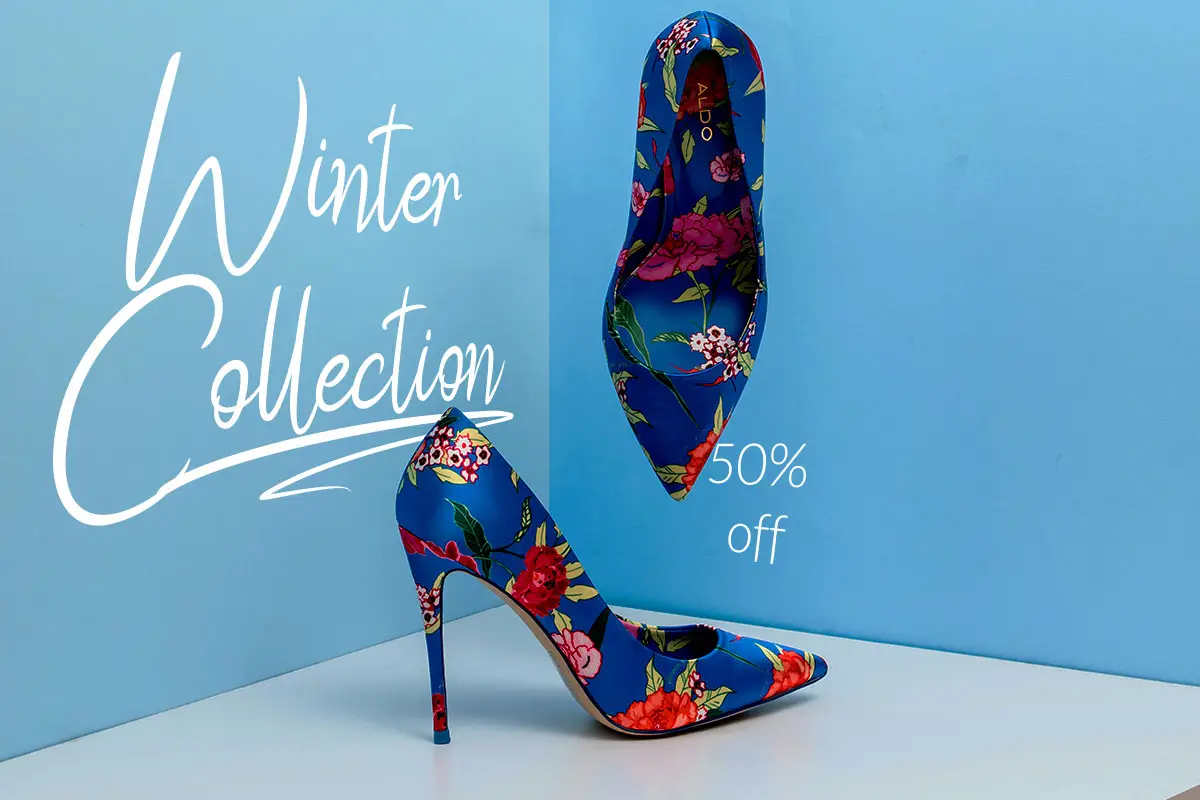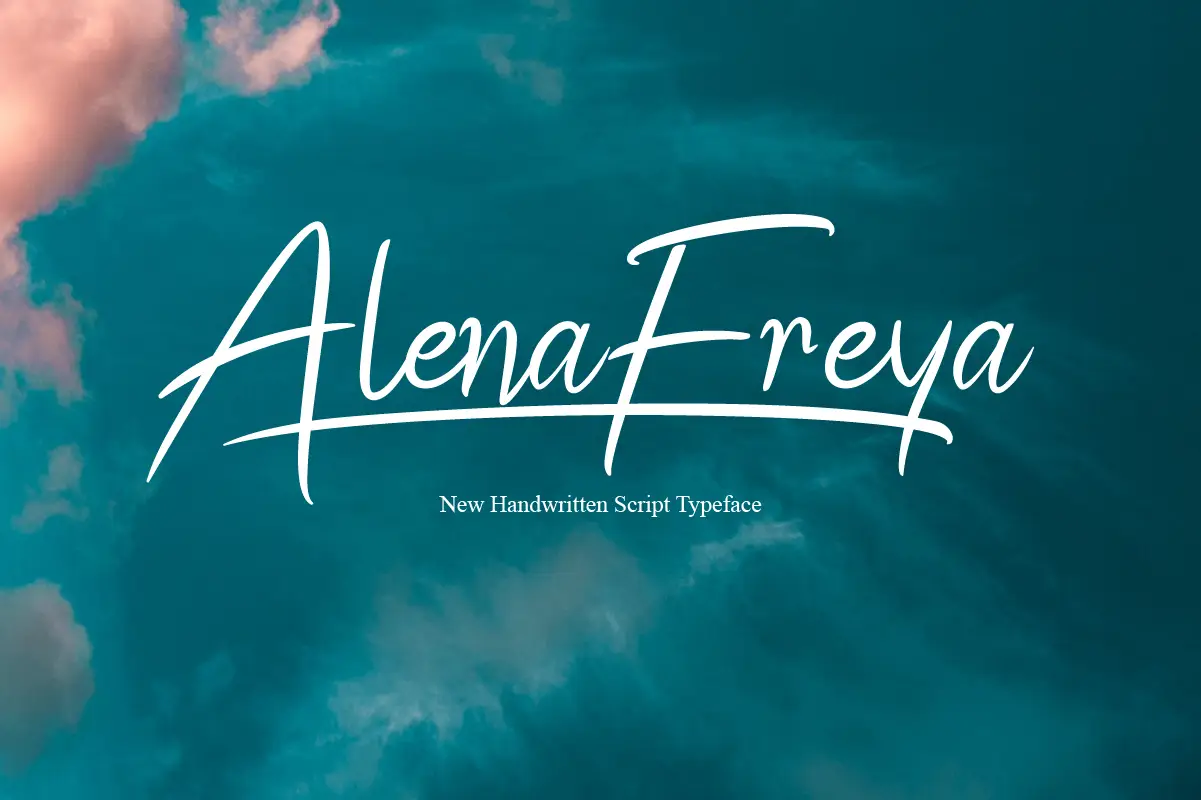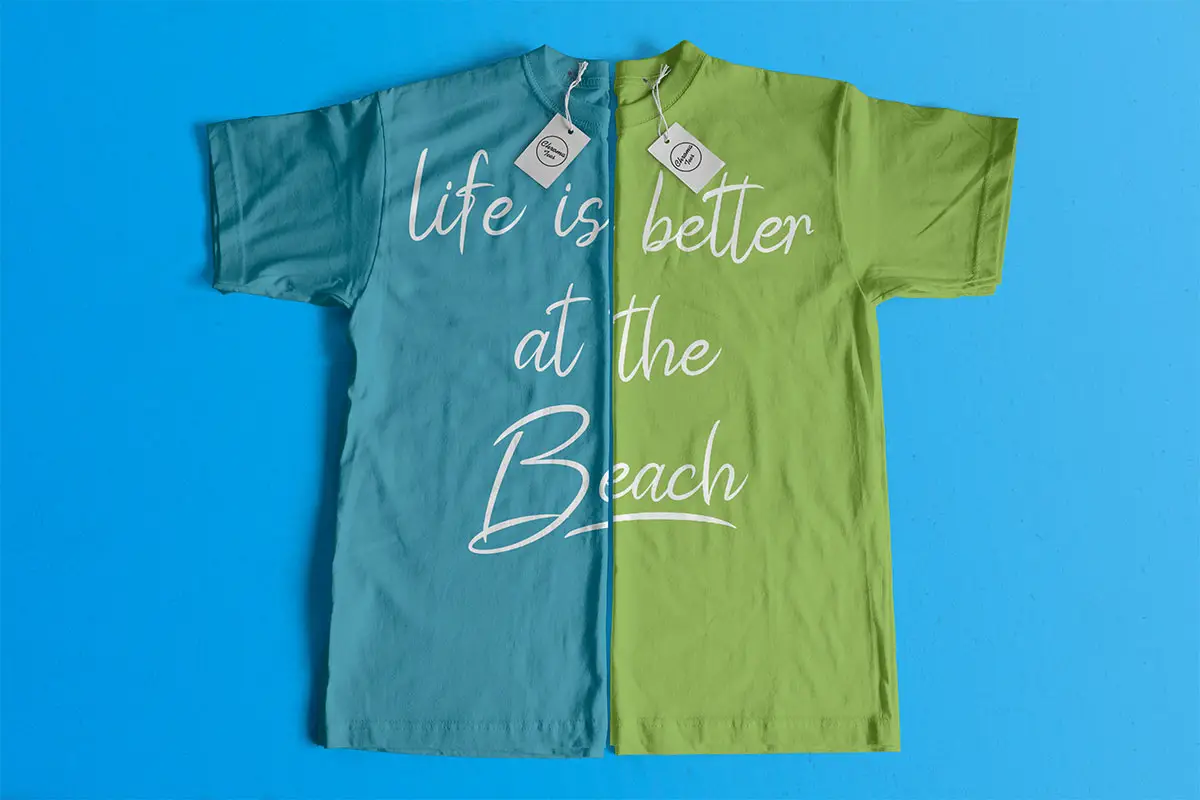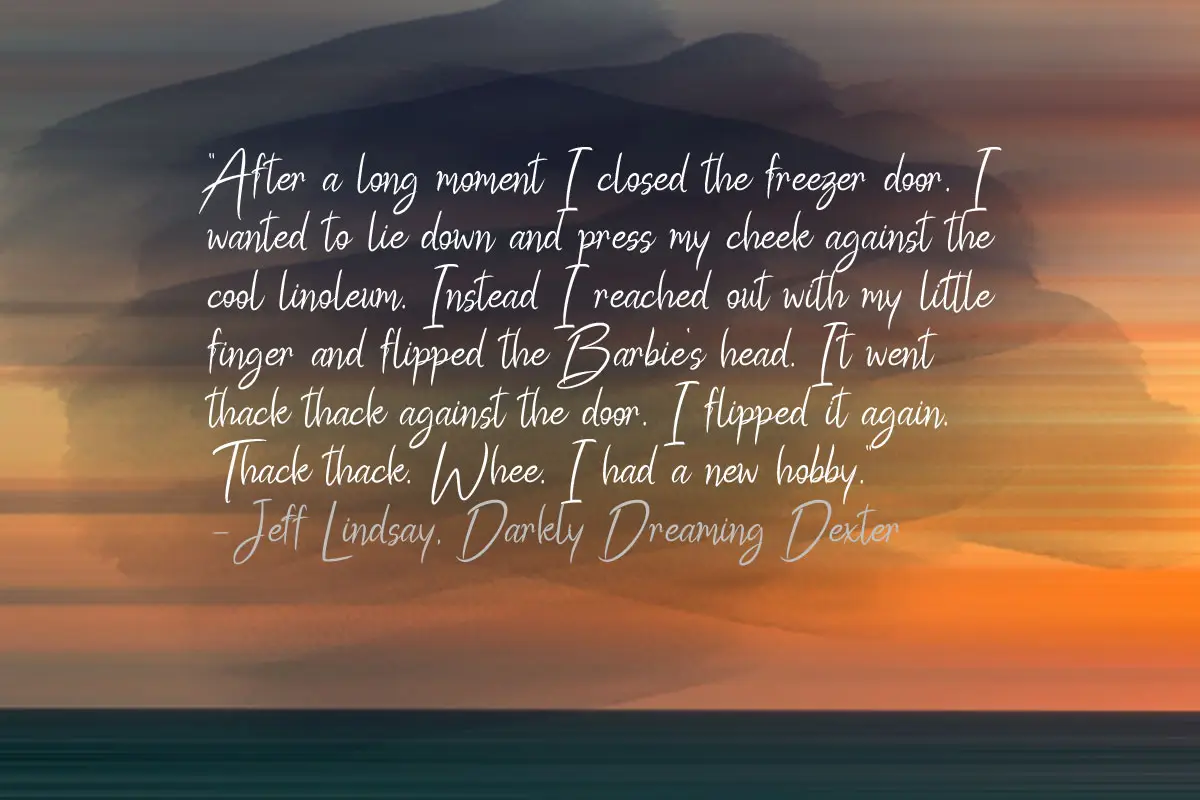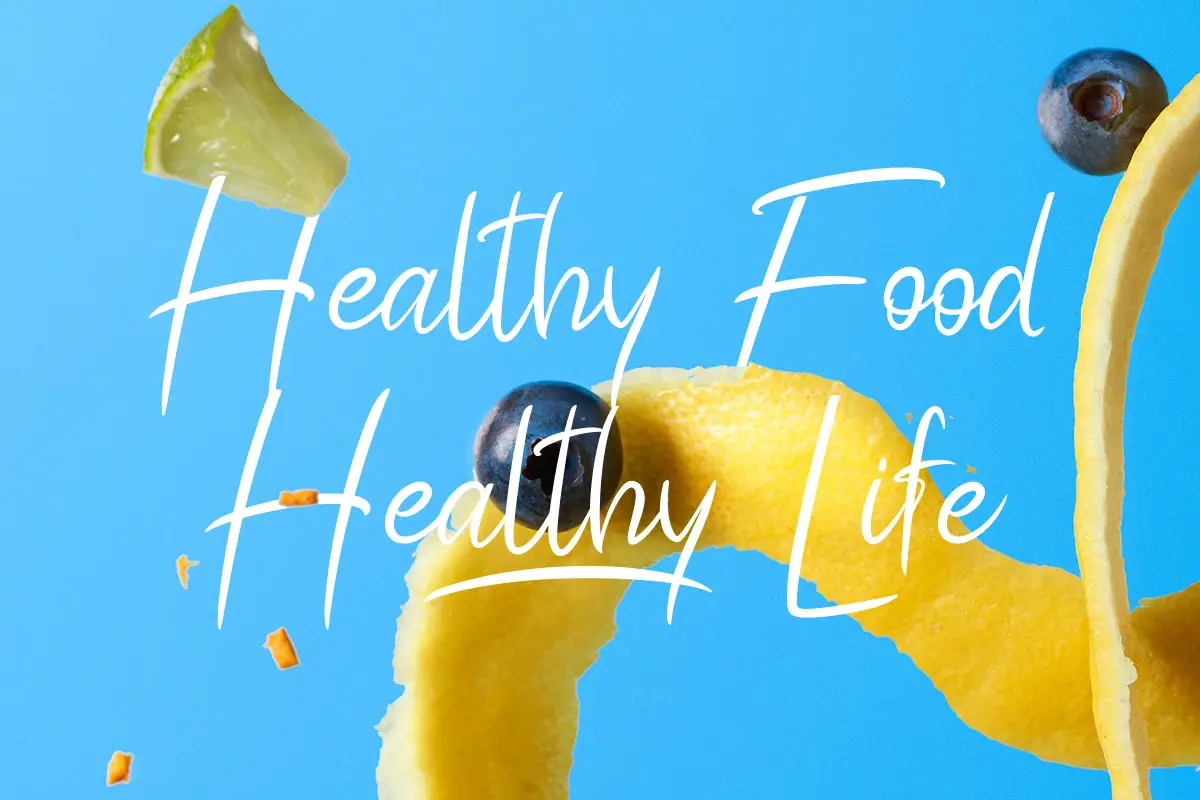
Alena Freya Script Font
The Alena Freya Script Font is a beautifully crafted typeface that brings a touch of elegance to your design projects. With its flowing curves and stylish strokes, this font is perfect for a variety of applications, including branding, logos, invitations, and more.
• Stylish script design
• Styles: Script
Utilize Alena Freya for elegant branding projects, eye-catching logos, and stylish print materials. Its unique script style makes it ideal for wedding invitations and personal stationery.